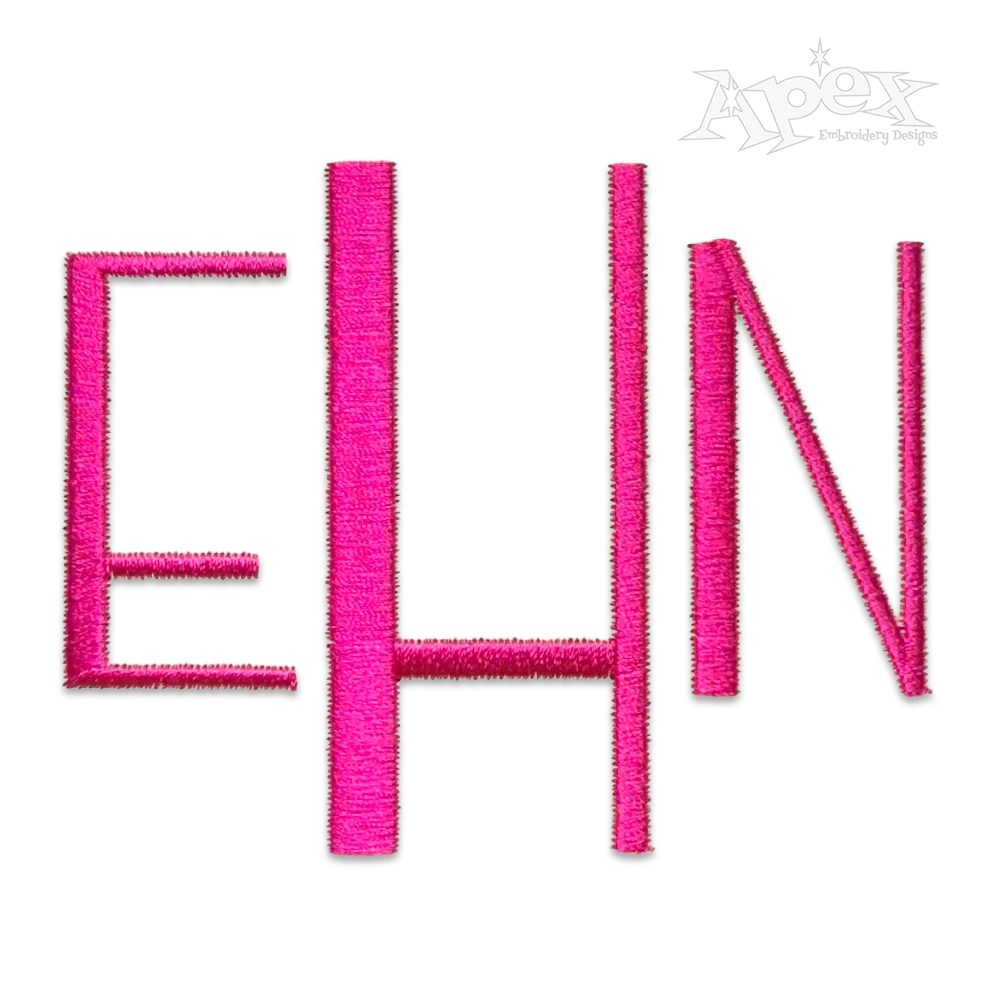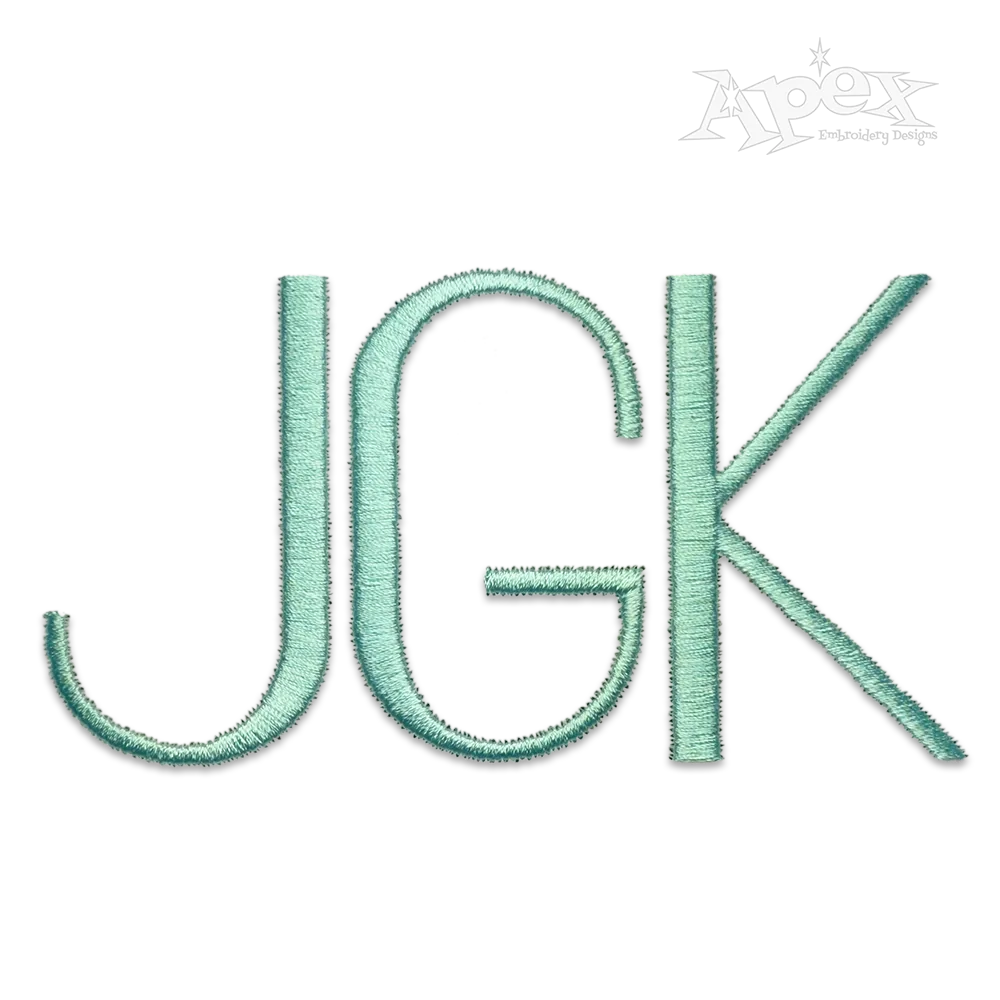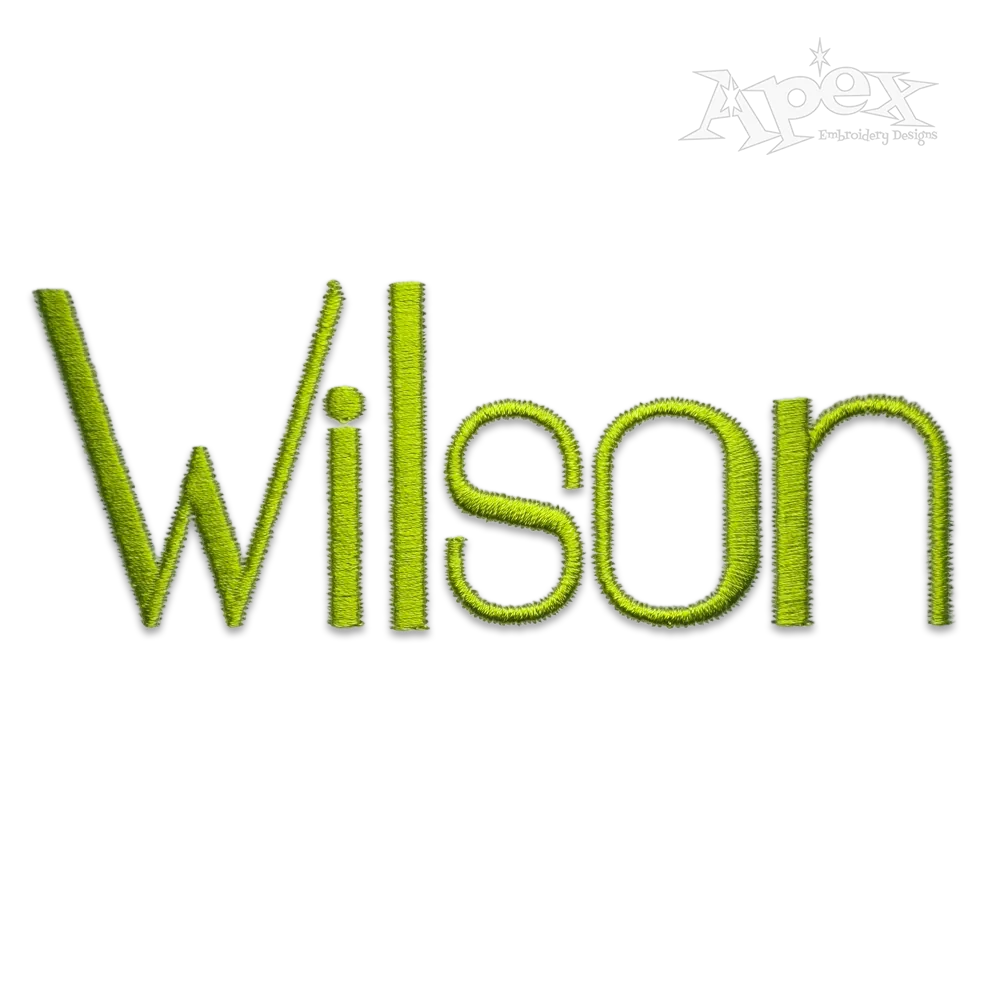
Miami Art Deco Embroidery Font
Inspired by the sun-drenched architecture and streamlined glamour of South Beach's golden era, the Miami Art Deco Embroidery Font brings vintage coastal luxury straight to your embroidery machine. When digitizing this alphabet, our passion was to capture the carefree yet sophisticated poise of 1930s typography—where elongated vertical stems, buoyant geometric curves, and high-waisted crossbars evoke breezy oceanfront promenades, pastel stucco, and neon-lit cabanas. Each letter flows with an effortless, slender elegance that transforms ordinary textiles into bespoke, heirloom-worthy design statements.
This masterfully digitized typography collection provides the essential sizes needed for everything from delicate monogramming to bold statement lettering:
- 1.0 inch – Ideal for subtle cuff initials, handkerchief accents, and refined napkin borders.
- 2.0 inch – Perfectly proportioned for shirt pockets, table linens, and personalized tote accents.
- 3.0 inch – Bold and architectural, designed for dramatic center-chest placement, pillow covers, and statement monograms.
Project Ideas for Miami Art Deco Embroidery Font
The distinctive geometric charm of this slender Art Deco typeface lends itself exquisitely to tailored lifestyle pieces and elevated gift-giving:
- Linen Cocktail Napkins: Stitch crisp single-letter monograms or two-letter pairings in warm metallic or retro pastel threads to elevate home bar carts and dinner parties.
- Bespoke Resort Wear: Embroider breezy linen camp shirts, cabana collars, swim cover-ups, and silk loungewear with crisp, modern typography.
- Heirloom Bedding & Bath Linens: Accent crisp percale duvet covers, guest towel sets, and waffle-weave spa robes with an architectural family initial.
- Canvas Beach Clutches & Totes: Use the 3-inch letters to create prominent, high-contrast initials on heavy cotton duck, sun visors, or straw travel accessories.
- Bridal Shower & Wedding Gifts: Mark personalized champagne bottle ribbons, honeymoon getaway travel cases, and newlywed keepsake blankets with sleek, modern elegance.
Due to its slender profile and elongated proportions, the Miami Art Deco alphabet thrives across both classic and unexpected hooping locations:
- Corner Diagonal: Angle single initials across linen napkins or handkerchiefs at a 45-degree angle, floating 1.5 to 2 inches inward from the corner hem for tailored balance.
- Center Chest: Position full names or spaced monograms centrally across light jackets, sweatshirts, or knit polos for a clean, retro-sporting aesthetic.
- Sleeve & Cuff Placement: Stitch subtle 1-inch monograms on dress shirt cuffs or robe sleeves, positioning the baseline parallel to the hem for an understated, bespoke touch.
- Vertical Pocket Alignment: Center letters cleanly above the left breast pocket on cotton or linen shirting, ensuring the tall vertical lines harmonize with the shirt's grainline.
Miami Art Deco Embroidery Font Craft & Letterform Details
Digitizing an ultra-slender, geometric Art Deco font requires exacting precision and nuanced stitch calculation. Because thin letterforms leave no room for error, every stroke is meticulously engineered with specialized underlay architecture that locks fabric fibers flat before the top stitching begins. This structural foundation prevents delicate linear satin stitches from sinking into textured weaves or rippling delicate cottons.
The satin stitch angles have been deliberately mapped along the sweeping curves of letters like 'B', 'P', and 'R' to create continuous, fluid light reflection as thread catches the sun. Corner transitions in angular letters such as 'M', 'N', and 'Z' feature carefully mitered stitch paths, preserving needle-sharp apex points without creating excessive bulk or thread buildup. The result is a stitch-out that runs smoothly, trims cleanly, and exudes the polished finesse of high-end boutique embroidery.